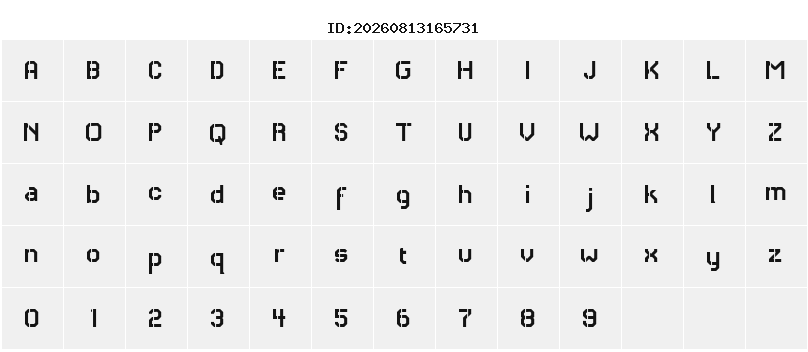
• Font Name: RH Carrier Stencil
• Full Font Name: RH Carrier Stencil
• Copyright: copyright 2002 by Joe Baldwin
About RH Carrier Stencil.ttf
RH Carrier Stencil.ttf is a modern, elegant sans-serif font designed for ultimate readability and visual harmony. Perfect for branding, headlines, web design, and print materials.